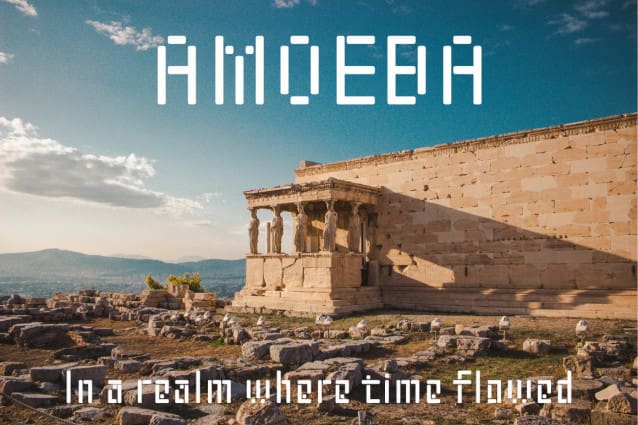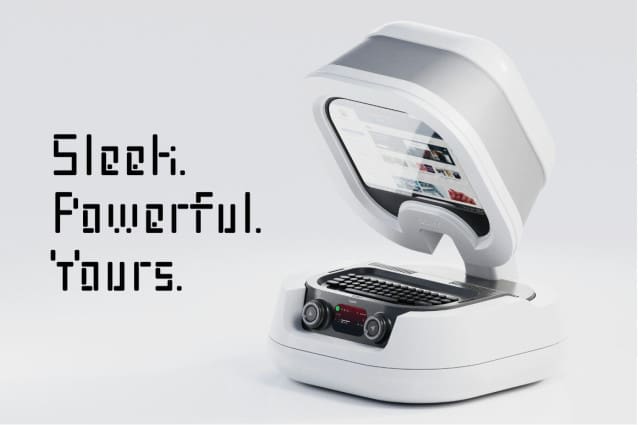
Zerpixl Volt Font
Zerpixl Volt Font a cutting-edge techno display pixel font designed to elevate your digital projects with a collided – experimental and dynamic aesthetic. Crafted with precision and innovation, ZerpixlVolt is the perfect fusion of technology and style, making it an ideal choice for those seeking a modern and impactful typeface.